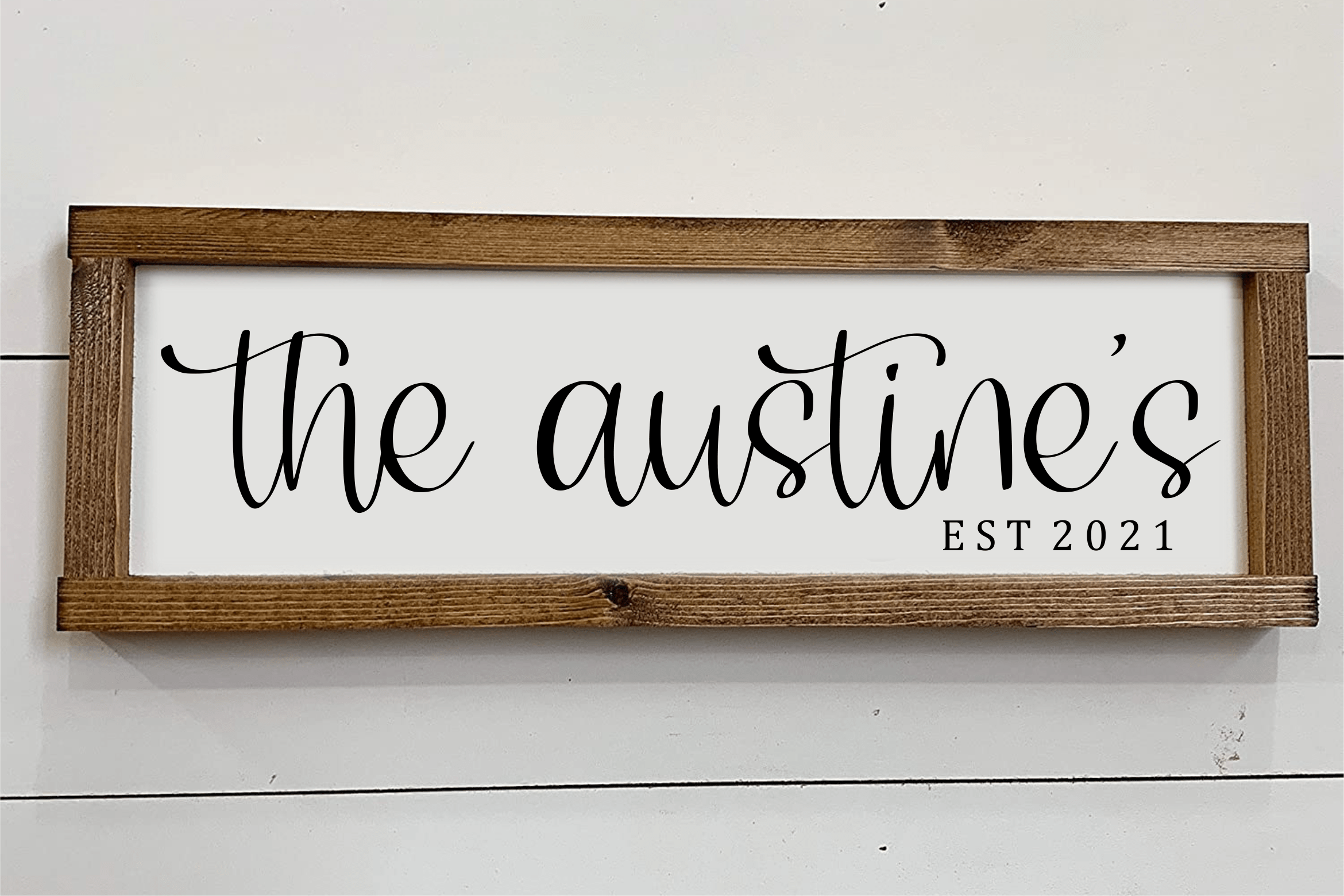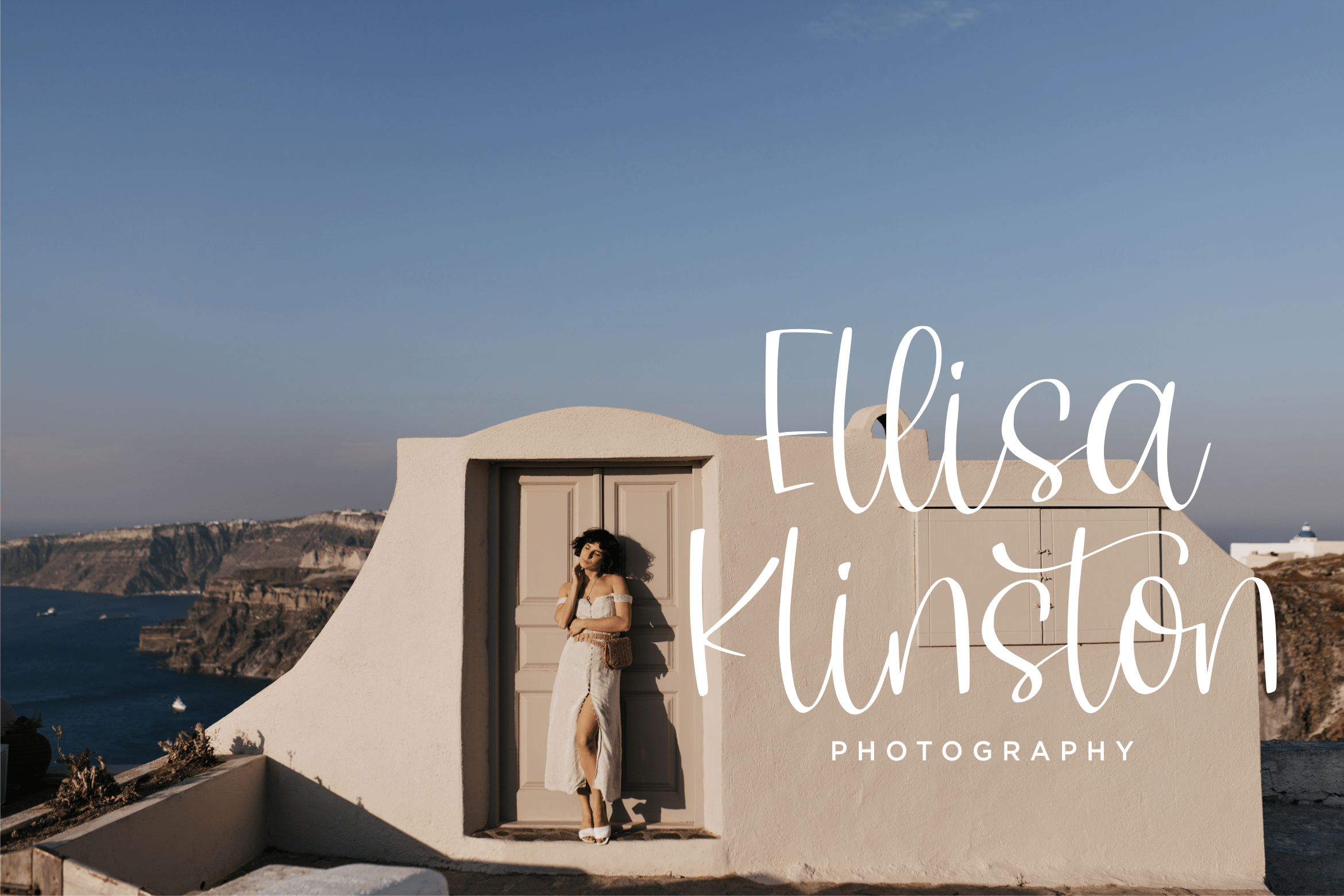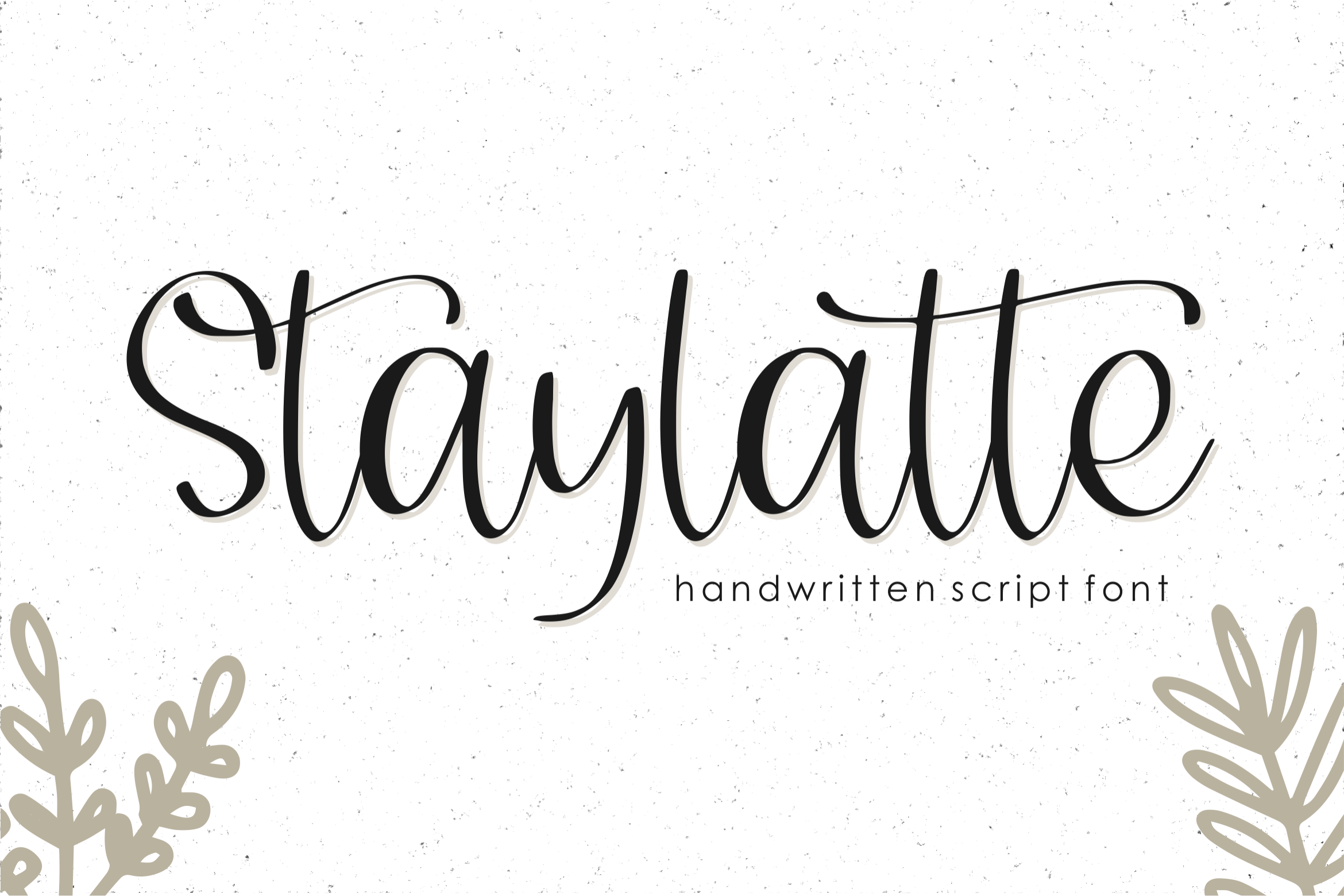
Staylatte Script Font
This is a gorgeous and sweet handwritten font. Staylatte is perfect for product packaging, branding project, magazine covers, social media, wedding, or just used to express words above the background.